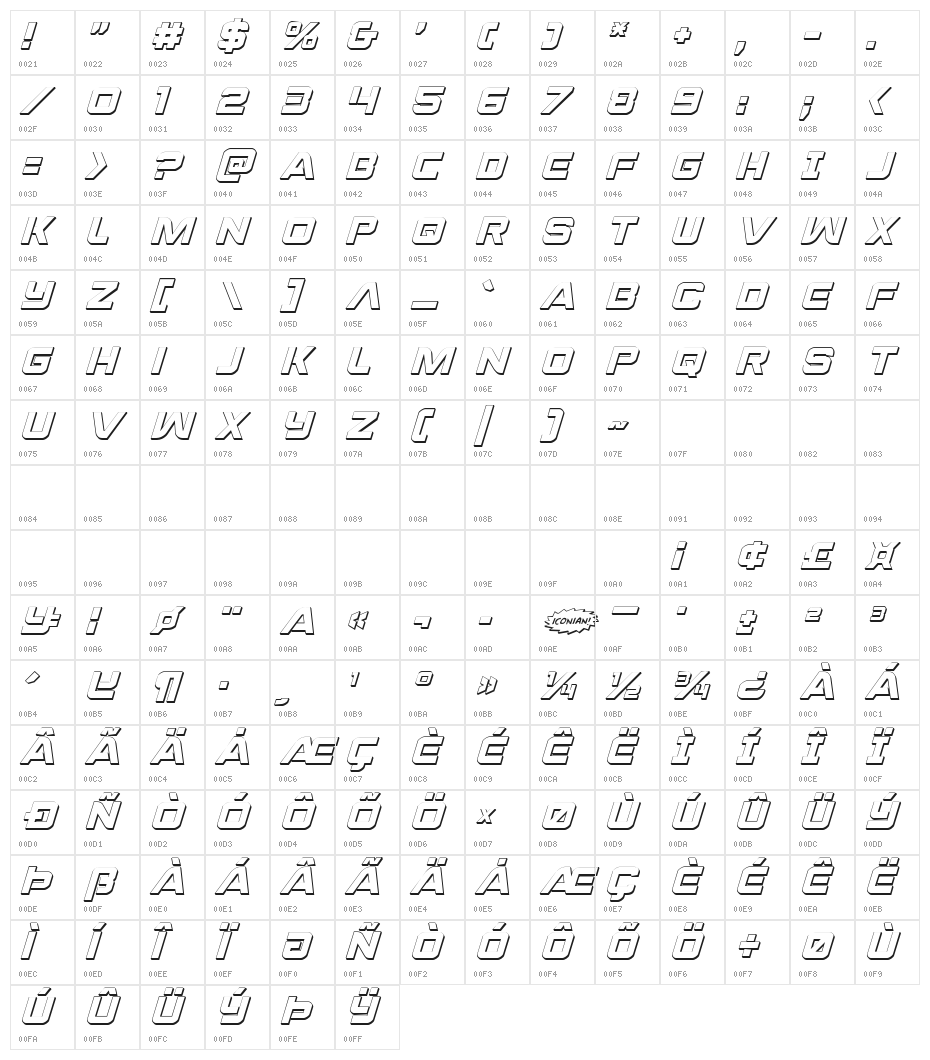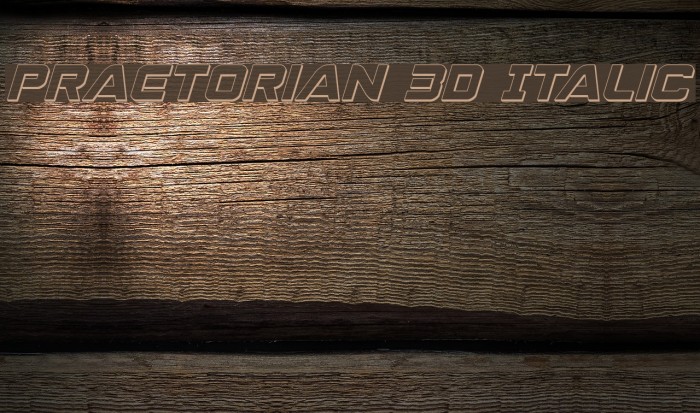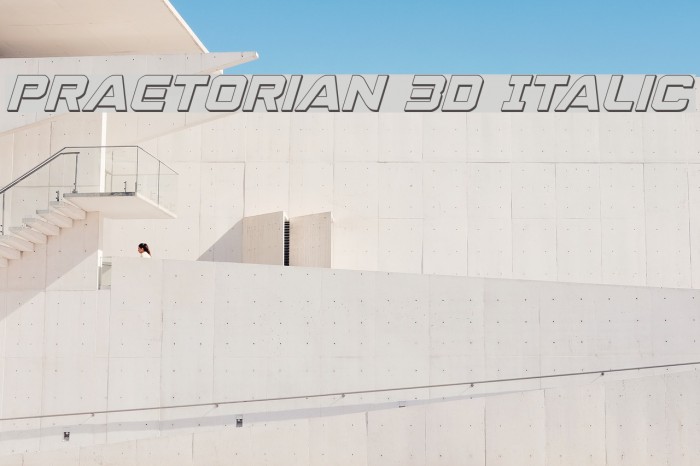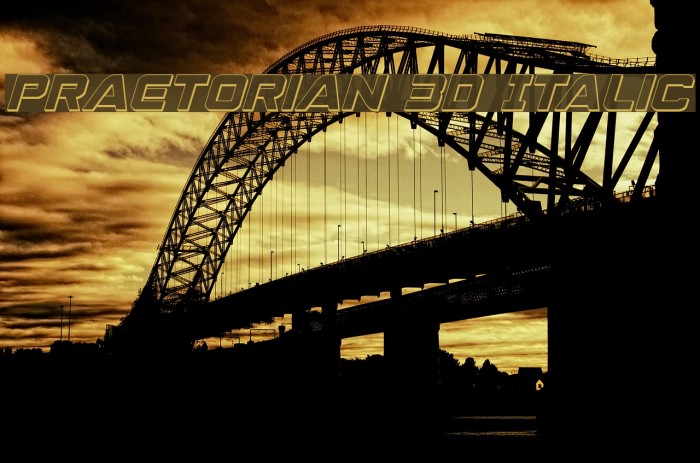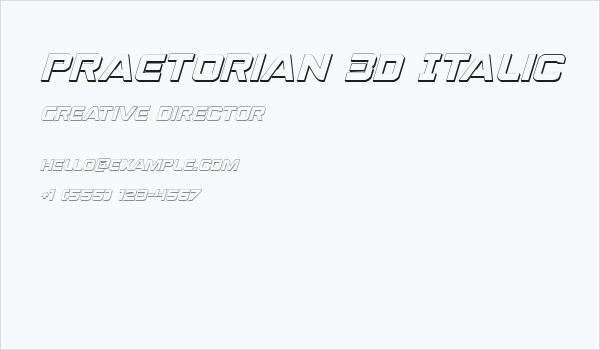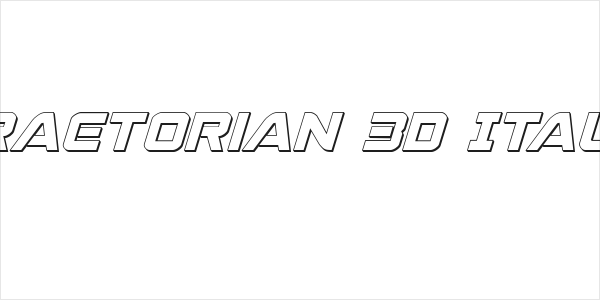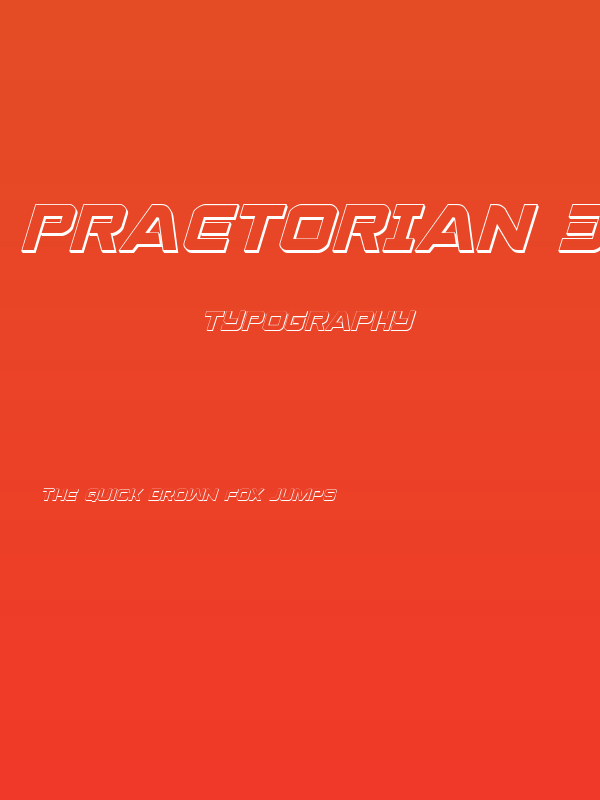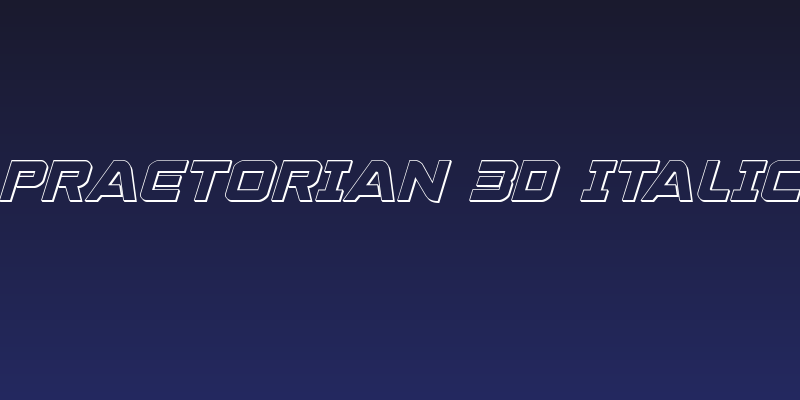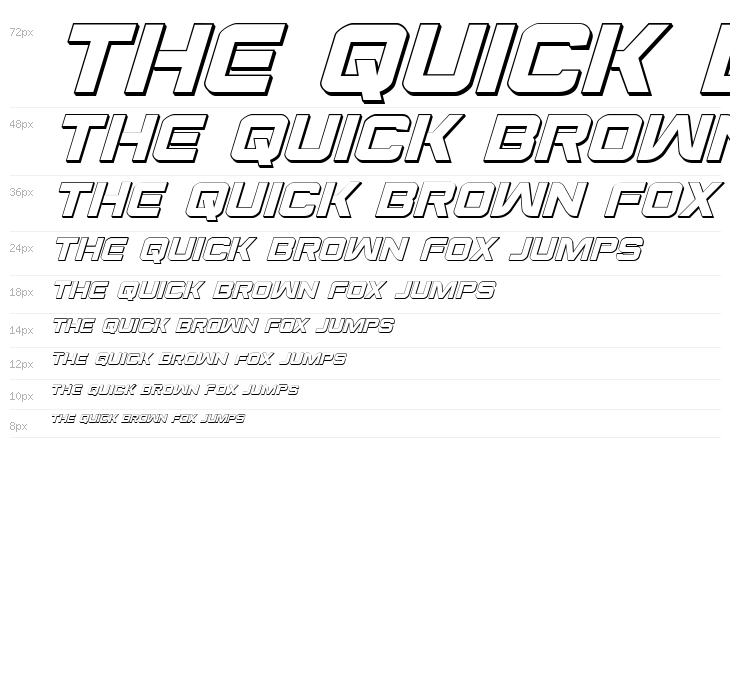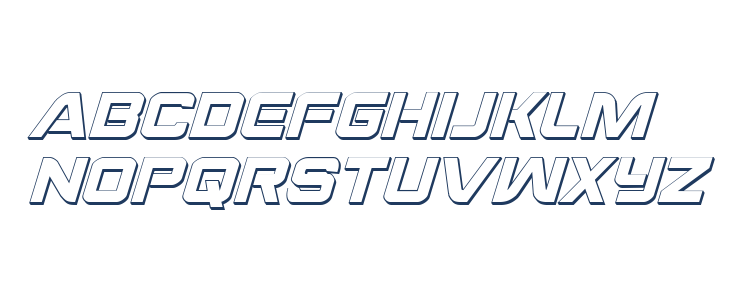
Praetorian 3D Italic Font
Praetorian 3D Italic Description
This font features a bold, three-dimensional design with an italic slant, giving it a dynamic and futuristic appearance. The characters are outlined, creating a hollow effect that enhances the 3D illusion. The uppercase and lowercase letters maintain a consistent style, with sharp angles and clean lines. The numerals and special characters follow the same design principles, ensuring uniformity across the font. The overall look is modern and eye-catching, making it suitable for projects that require a strong visual impact.
| Proposed Projects | Ideal for video game titles, sci-fi posters, tech branding, and dynamic presentations. |